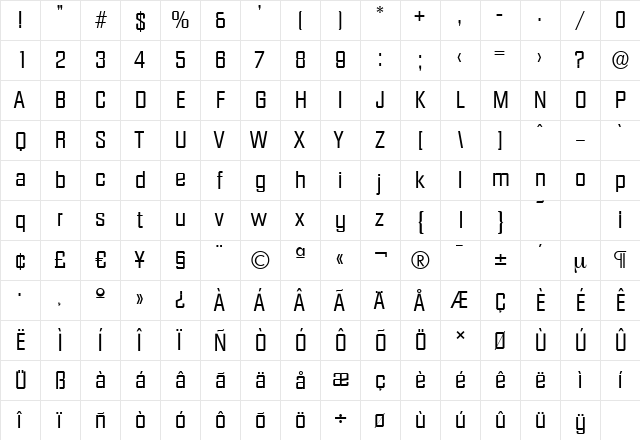
DiamanteSerial Regular
Design Context for DiamanteSerial Typeface
DiamanteSerial offers clean, dependable letterforms without strong stylistic allegiance, making it a practical choice for designers who need flexibility.
Pro Tip: Use DiamanteSerial in both headline and body roles to test its range before committing to a single application.